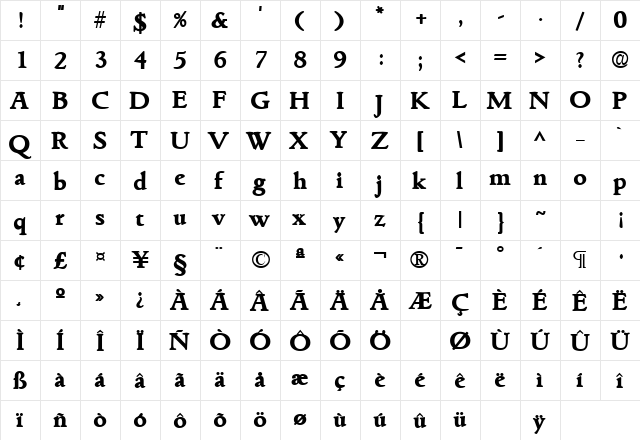
GoudyItalianLH Bold Font Preview
GoudyItalianLH Bold
GoudyItalianLH Bold Font Details
Design Context for GoudyItalianLH Typeface
GoudyItalianLH offers clean, dependable letterforms without strong stylistic allegiance, making it a practical choice for designers who need flexibility. Its bold stroke weight gives it real presence on the page.